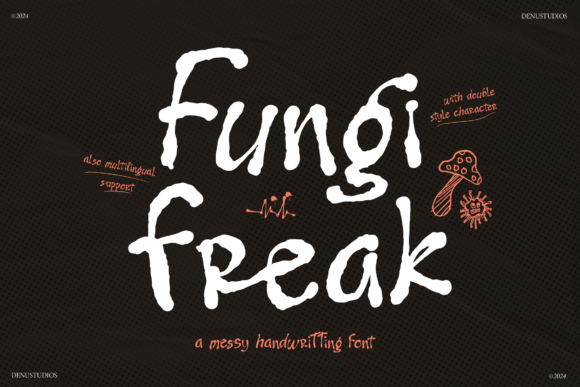
Fungi Freak Font: Unleash Your Creativity with this Playful and Messy Handwriting Font
Are you tired of using the same old boring fonts for your creative projects? Do you want to add a bold and quirky touch to your designs? Look no further than the Fungi Freak Font! This playful and messy handwriting font is perfect for anyone who wants to add a fun and wild style to their work.
What is Fungi Freak Font?
Fungi Freak Font is a unique and eye-catching handwriting font that looks like it was quickly scribbled. Its messy and playful style gives it a fun and energetic vibe that’s perfect for creative projects that need a bold and quirky touch. Whether you’re designing a logo, creating a poster, or crafting a social media post, Fungi Freak Font is sure to make your work stand out.
Characteristics of Fungi Freak Font
So, what makes Fungi Freak Font so special? Here are some of its key characteristics:
- Playful and messy: Fungi Freak Font has a fun and playful style that’s perfect for creative projects. Its messy and scribbled look gives it a unique and eye-catching vibe.
- Handwriting font: Fungi Freak Font is a handwriting font that looks like it was written by hand. This gives it a personal and human touch that’s perfect for projects that need a personal touch.
- Bold and quirky: Fungi Freak Font is a bold and quirky font that’s perfect for projects that need a statement piece. Its unique style is sure to grab attention and make your work stand out.
Uses of Fungi Freak Font
Fungi Freak Font is a versatile font that can be used for a wide range of creative projects. Here are some ideas to get you started:
- Logos and branding: Fungi Freak Font is perfect for creating unique and eye-catching logos and branding materials. Its playful and messy style is sure to make your brand stand out.
- Posters and flyers: Add a bold and quirky touch to your posters and flyers with Fungi Freak Font. Its fun and energetic vibe is sure to grab attention and make your work stand out.
- Social media graphics: Fungi Freak Font is perfect for creating social media graphics that need a personal and human touch. Use it to create eye-catching posts and stories that will engage your audience.
- Invitations and cards: Add a playful and messy touch to your invitations and cards with Fungi Freak Font. Its unique style is sure to make your work stand out and make a lasting impression.
Benefits of Using Fungi Freak Font
So, why should you use Fungi Freak Font for your creative projects? Here are some benefits to consider:
- Unique and eye-catching: Fungi Freak Font is a unique and eye-catching font that’s sure to make your work stand out. Its playful and messy style is perfect for creative projects that need a bold and quirky touch.
- Personal and human touch: Fungi Freak Font has a personal and human touch that’s perfect for projects that need a personal touch. Its handwriting style gives it a warm and friendly vibe that’s sure to engage your audience.
- Versatile: Fungi Freak Font is a versatile font that can be used for a wide range of creative projects. Whether you’re designing a logo, creating a poster, or crafting a social media post, Fungi Freak Font is sure to be a great choice.
Fungi Freak Font is a playful and messy handwriting font that’s perfect for creative projects that need a bold and quirky touch. Its unique and eye-catching style is sure to make your work stand out and engage your audience. With its personal and human touch, Fungi Freak Font is a versatile font that can be used for a wide range of design applications. So why not give it a try and see how it can add a fun and wild style to your creative projects?